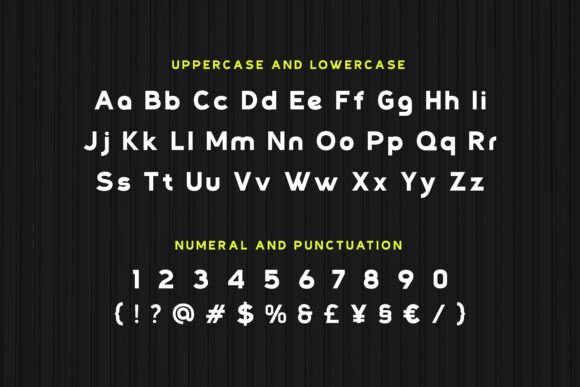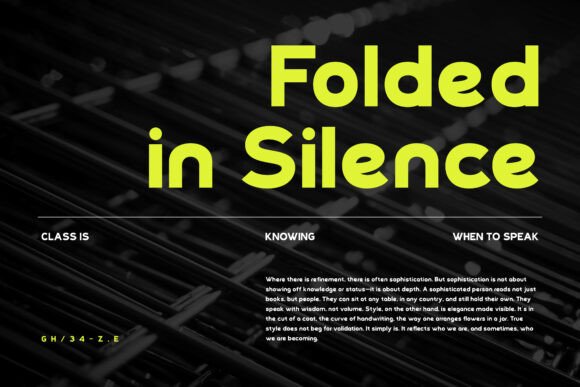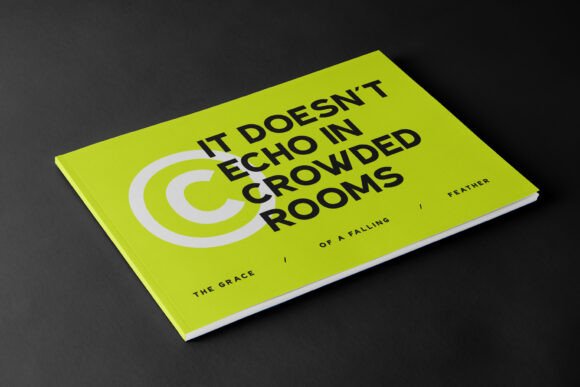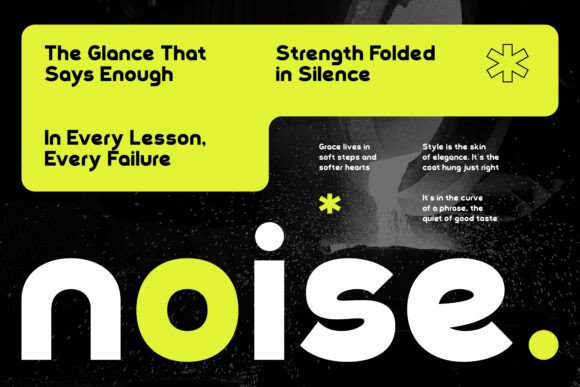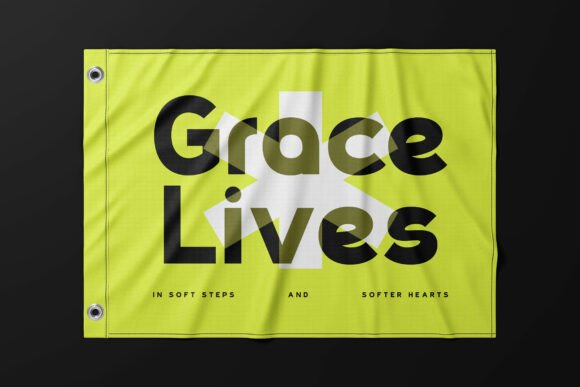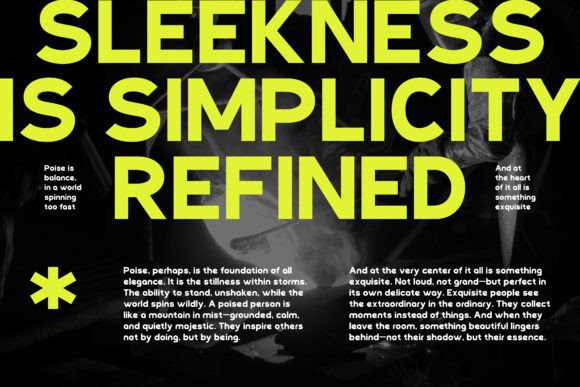
The Right Tool for the Job: Unveiling the Gormica Font
As designers, we’ve all been there – staring at a blank canvas, unsure of where to begin. The blank page can be intimidating, but it’s in these moments of creative uncertainty that we discover the true power of typography. For me, it was the need for a bold, industrial font that sparked the search for the perfect companion to my designs. And then, I found it – the Gormica Font, a powerhouse geometric sans serif that brings strength and precision to any project.
With its clean, circular foundations and high-contrast bold strokes, the Gormica Font is more than just a font – it’s a statement of modern sophistication and industrial reliability. Whether you’re working on heavy machinery branding, architectural portfolios, or tech startups, this font provides a solid, authoritative voice that remains incredibly legible and stylishly minimal.
Gormica Font Key Features
- Font Family: Gormica Font is a sans-serif font family designed for digital use.
- Unique Characteristics: Gormica Font features a distinctive, modern design with a focus on legibility and readability, making it suitable for digital interfaces and publications.
Gormica Font Review
Overall, I think the Gormica font is a great addition to any designer’s toolkit. ✨ Its unique, futuristic design makes it perfect for projects that require a touch of sci-fi flair. Here are some of the things that work well:
- ✨ Distinctive letterforms: The Gormica font has a very distinct look, which can be great for making a statement in your designs.
- ✨ High legibility: Despite its futuristic design, the font is still very easy to read, making it suitable for a wide range of applications.
- ✨ Versatile: The font comes in a range of weights and styles, making it easy to adapt to different design needs.
That being said, there are a few limitations to be aware of:
- ⚠️ Limited character set: The Gormica font is not a full Unicode font, which can make it difficult to use in certain languages or with non-standard characters.
- ⚠️ Not suitable for body text: While the font is great for headings and titles, it may not be the best choice for body text, where readability is crucial.
Overall, I think the Gormica font is a great choice for designers who want to add a touch of futurism to their projects. Just be aware of its limitations and use it wisely.
Tips for Getting the Most Out of Gormica Font
For optimal results, use Gormica font for titles and headings, and pair it with a clean, sans-serif font for body text.
Experiment with different font sizes and styles to create visual hierarchy and emphasis.
Gormica font is commonly used for:
- Logo design and branding
What are the technical details of the Gormica Font?